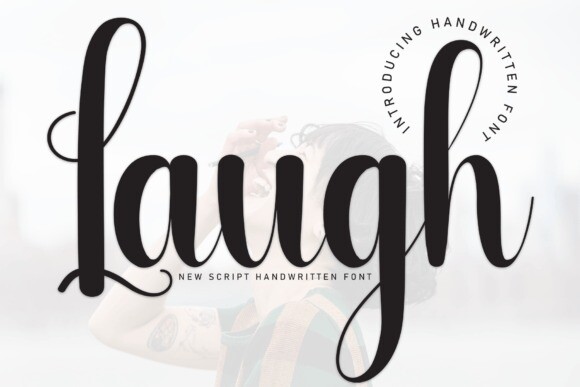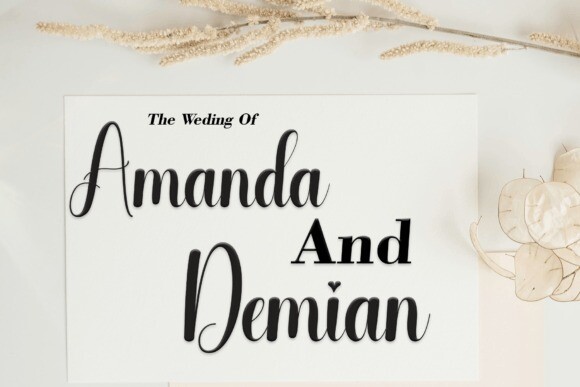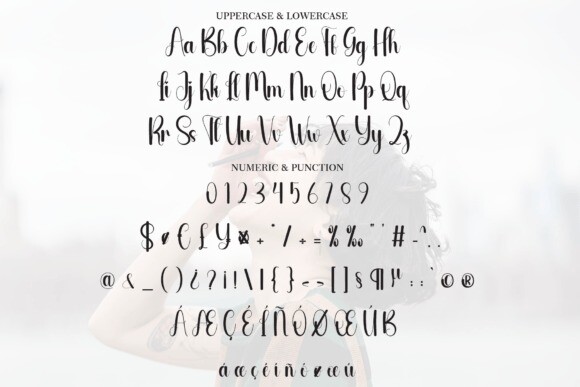
Laugh Font
Laugh Font is a sweet and friendly handwritten font. Fresh and neat, this font is ideal for writing wedding invitations, cards, or any other design that might need a fun touch!